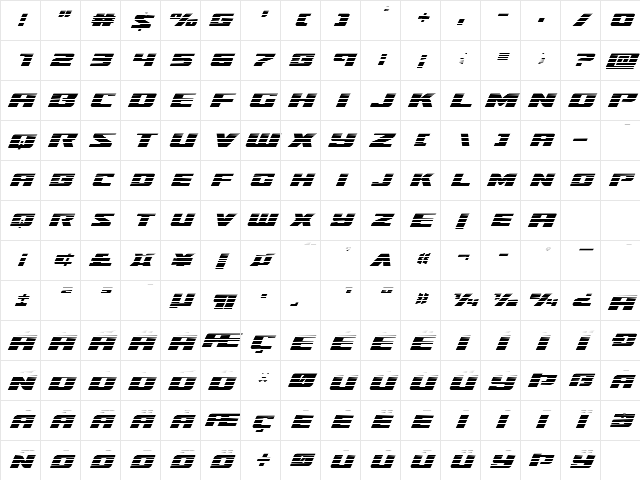
Super Brigade Gradient Regular
Design Context for Super Brigade Gradient
Super Brigade Gradient is a composed and adaptable typeface that performs quietly and consistently across a wide range of design contexts.
Pro Tip: Use Super Brigade Gradient in both headline and body roles to test its range before committing to a single application.